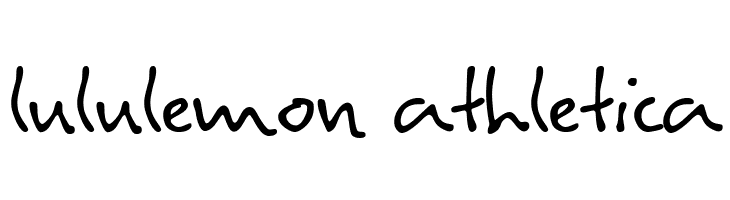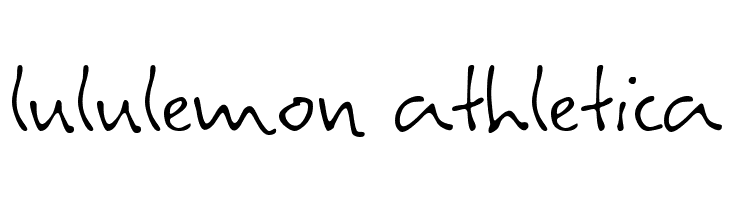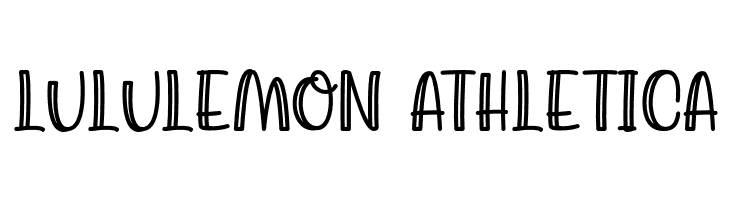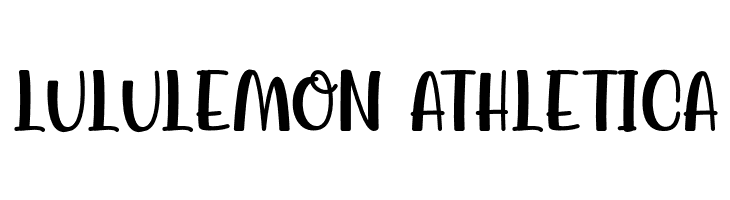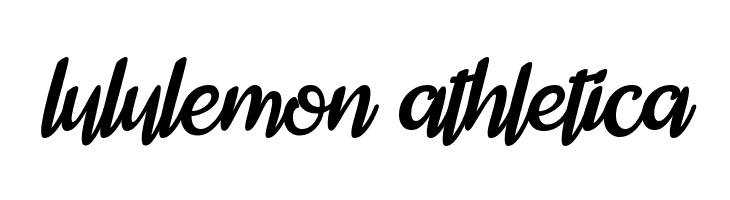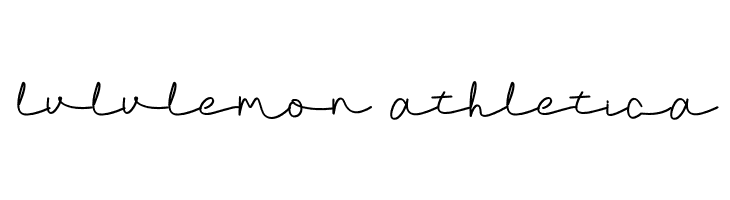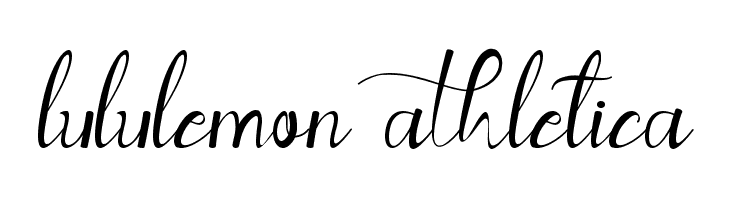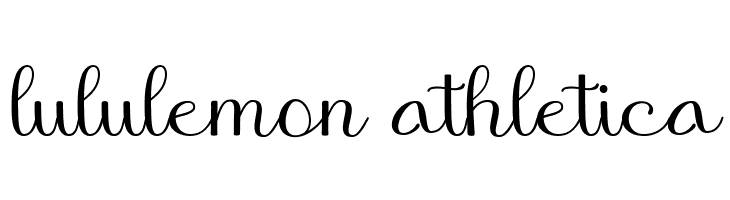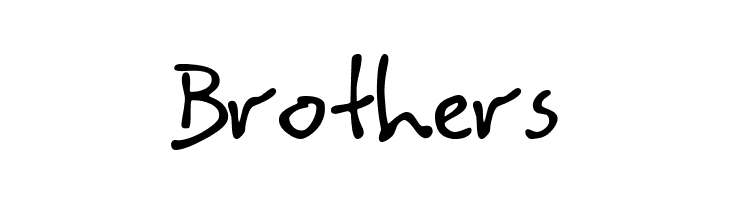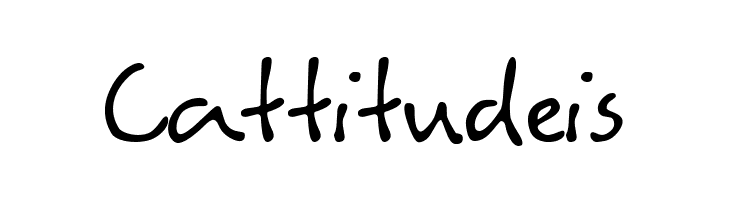
A dynamic and flowing script font with a modern twist.
A fluid, elegant script font with a natural handwritten style.
A casual, handwritten font with fluid, organic strokes.
A casual, handwritten font with a playful and informal style.
A whimsical, decorative font with heart embellishments and flowing script.
An elegant script font with flowing, intricate letterforms and artistic swashes.
A playful and whimsical font with bold, flowing letterforms and dynamic strokes.
A playful, handwritten font with bold, expressive characters and unique flourishes.
A playful, outlined font with a whimsical, hand-drawn style.
A playful, outlined decorative font with whimsical curves and loops.